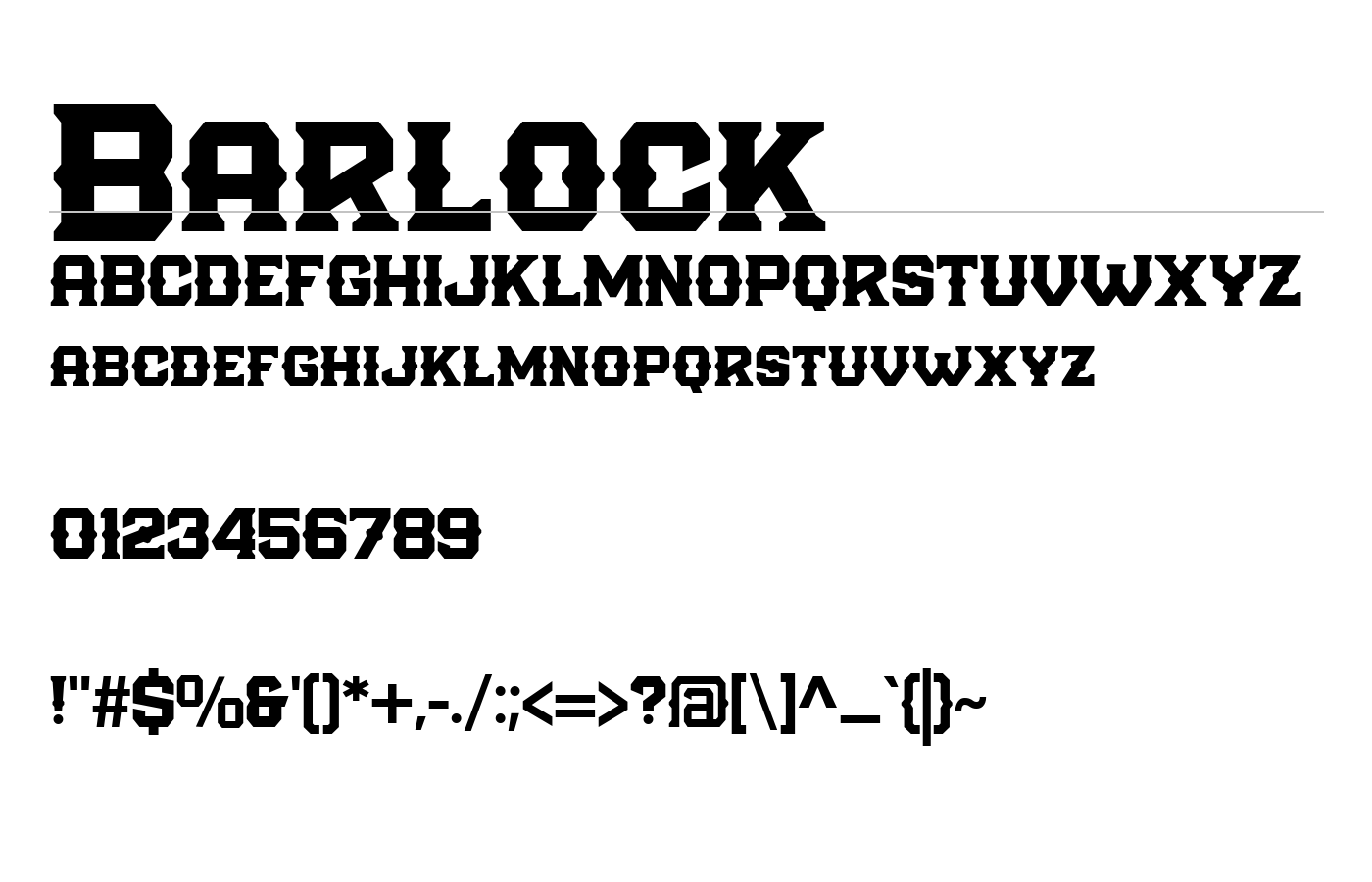
Barlock is a bold, slab serif font characterized by its strong, angular letterforms and sturdy, block-like serifs. With its high contrast and condensed width, this font conveys a tough, vintage industrial vibe, making it ideal for eye-catching headlines, logos, or branding that seeks to evoke strength and ruggedness. Its all-caps design emphasizes impact and readability, perfect for posters, packaging, and editorial use where a powerful statement is needed.
Barlock Font
About Barlock Font
| Font family | Barlock Font |
| Designer | Arterfak Project |